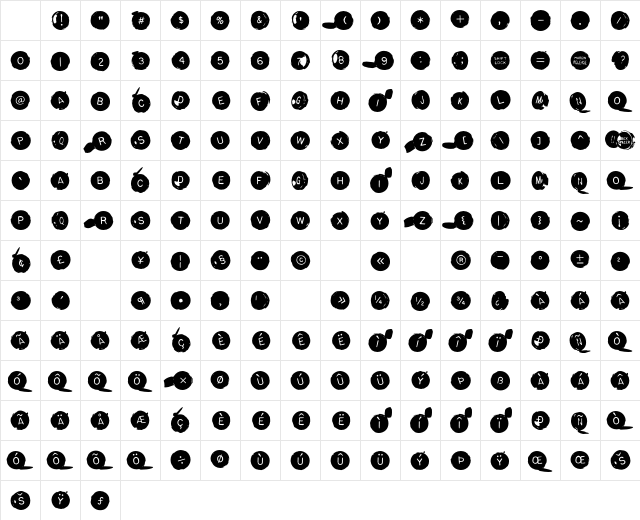
Complete BackspacerRound Roman glyph index. Displaying only characters natively supported by BackspacerRound Roman font.
BackspacerRound softens its letterforms with rounded terminals, giving it an approachable, friendly quality that works well in consumer-facing and digital contexts.
Font Pairing: Pairs well with a rounded or humanist sans for body copy, maintaining the friendly tone without relying on BackspacerRound to carry extended reading.
Pro Tip: Use BackspacerRound for UI elements, app interfaces, and anywhere a friendly, approachable tone needs to be maintained without sacrificing clarity.